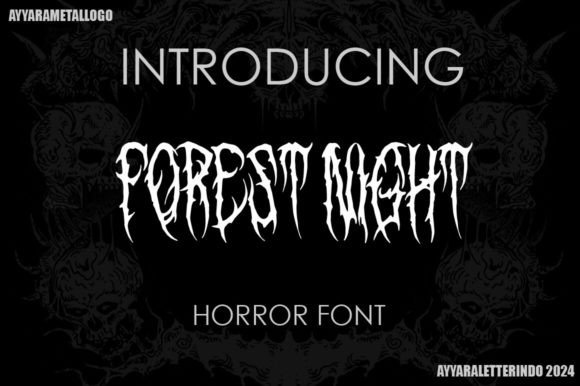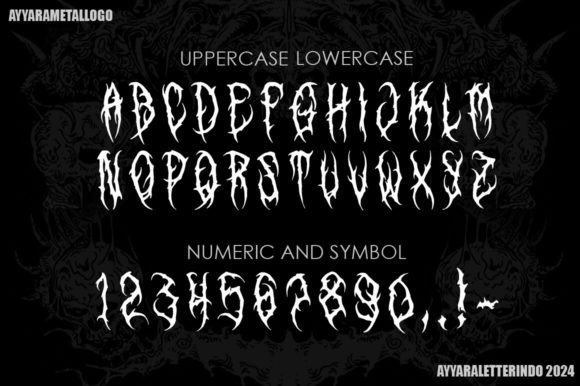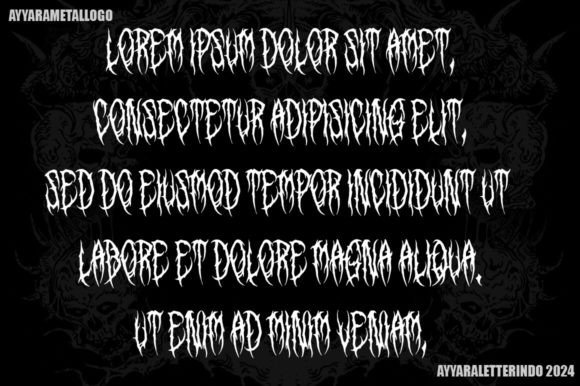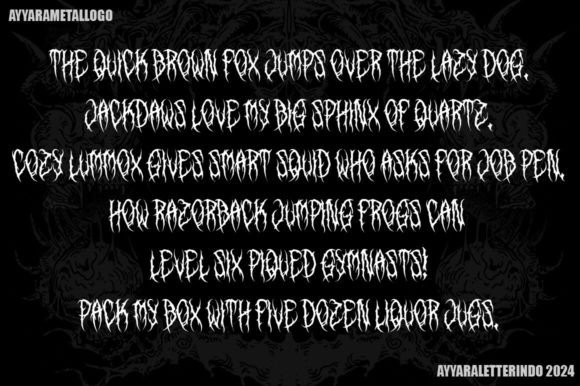
Forest Night Font: Blackletter Typography for Metal Logos & Branding
About the Forest Night Font
Welcome to the world of Forest Night Font, a typeface that will inspire your next great project. Forest Night is a metal font can be used for logos or branding and your metal band name. You can immediately make your band or brand logo name with the help of this unique blackletter font. Combine it with the black metal or death metal ornaments and make your cool metal design with ease!
Forest Night’s aggressive, angular forms make it ideal for impactful headlines, logos, and short, punchy text within the context of metal music branding, posters, or merchandise. Its strong personality, however, makes it unsuitable for body text or user interfaces where readability is paramount. Long blocks of text set in Forest Night would be visually overwhelming and difficult to read.
Pairing Forest Night effectively requires considering its weighty presence. A clean, geometric sans-serif like Futura or a minimalist serif like Garamond can provide a strong contrast, creating visual balance. For a slightly more aggressive pairing, a slab serif like Rockwell could amplify its bold character. Avoid pairing with overly ornate or playful fonts, which would clash with Forest Night’s raw intensity.
The font exudes a rebellious, uncompromising energy. It’s perfectly suited to brands that project power, darkness, and a nonconformist attitude.